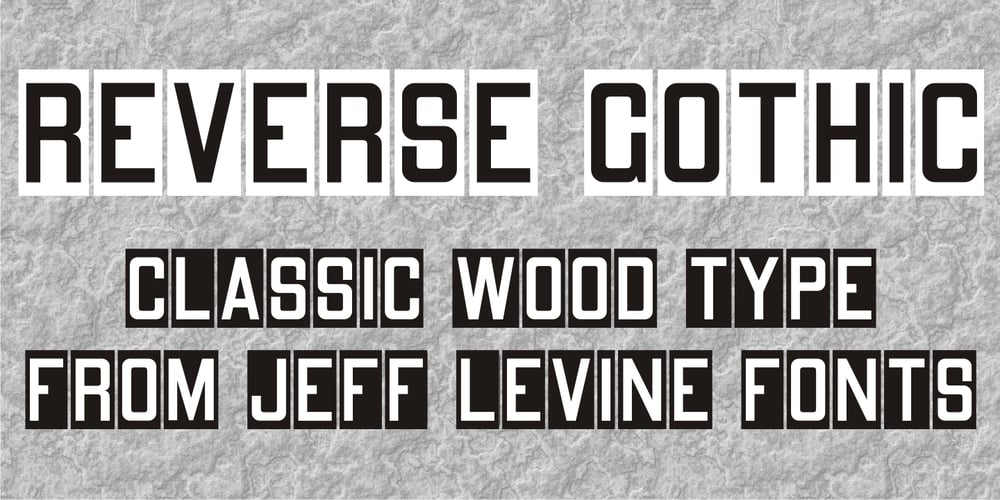
Reverse Gothic JNL
Reverse Gothic JNL font
Reverse Gothic JNL Font Family was designed by Jeff Levine and published by Jeff Levine. Reverse Gothic JNL contains 1 styles and family package options. Reverse Gothic JNL is a design based on vintage reverse letterpress type for creating interesting headlines with white-on-black text.